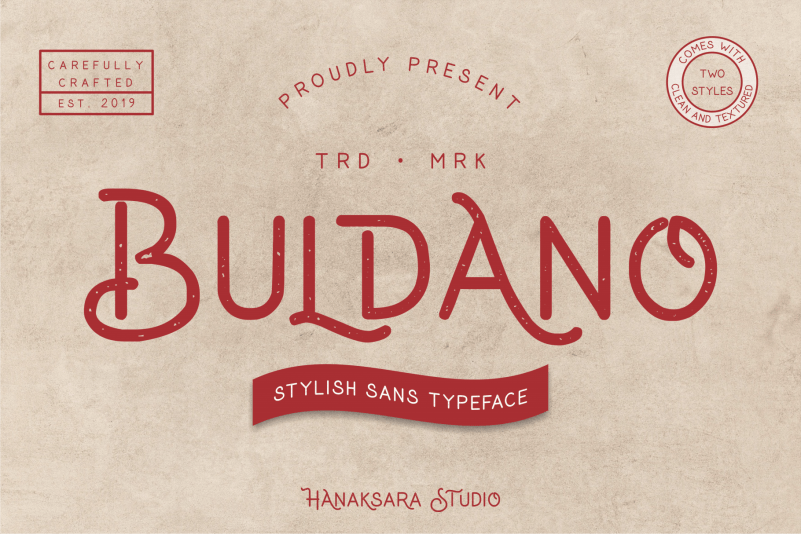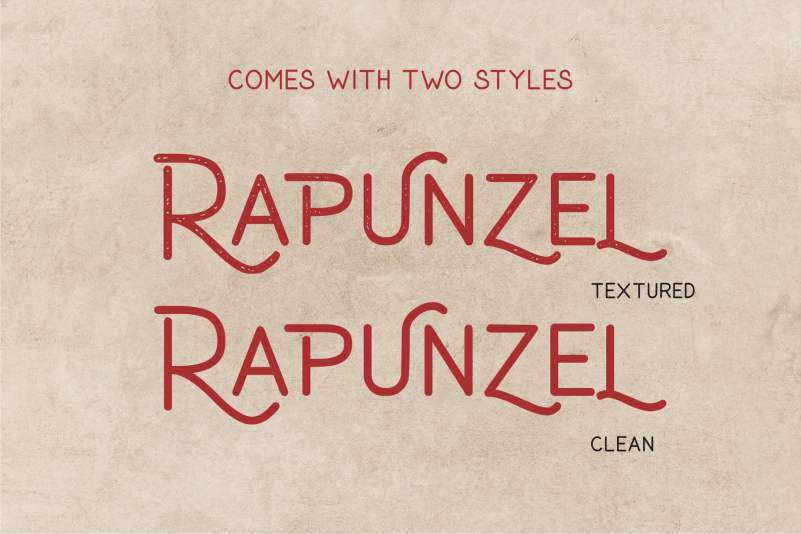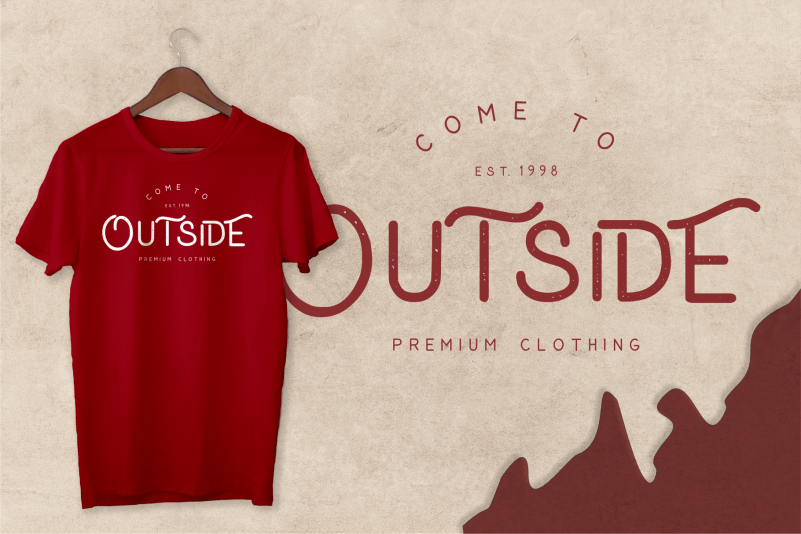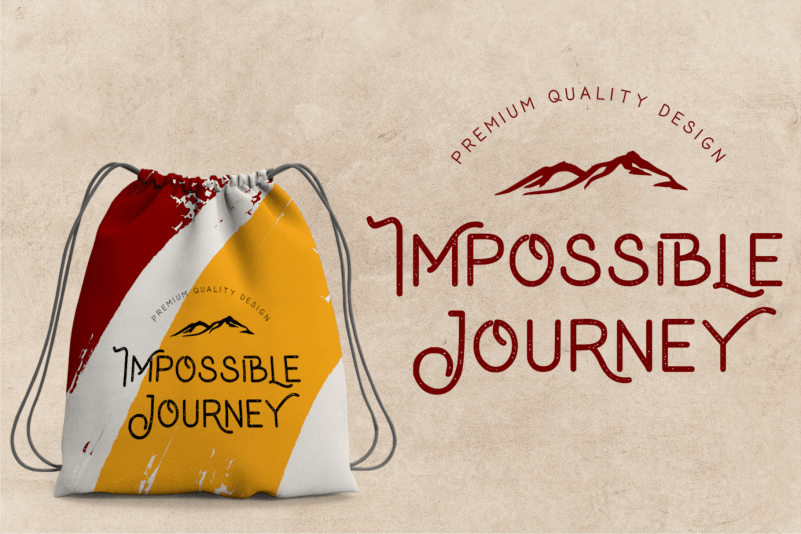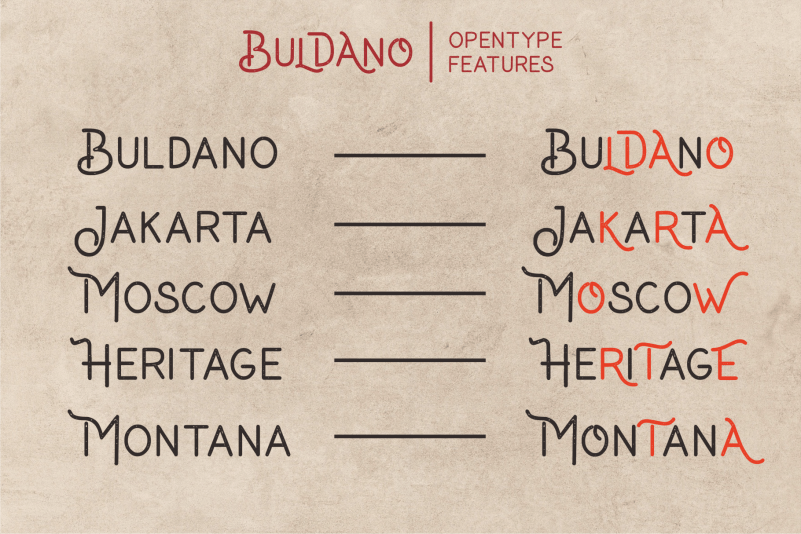
Buldano Stylish Sans Font is a stylish sans typeface, in full version Buldano comes with two styles, Clean and Textured. It’s really perfect for logos, posters, apparel, t-shirt designs, drawingstring bags, hang tags, coffee logos and other design that requires a vintage impression without leaving a elegant impression.
In full version Buldano Font was included with several lowercase alternate, to maintain custom made look. And you will get with this following formats :